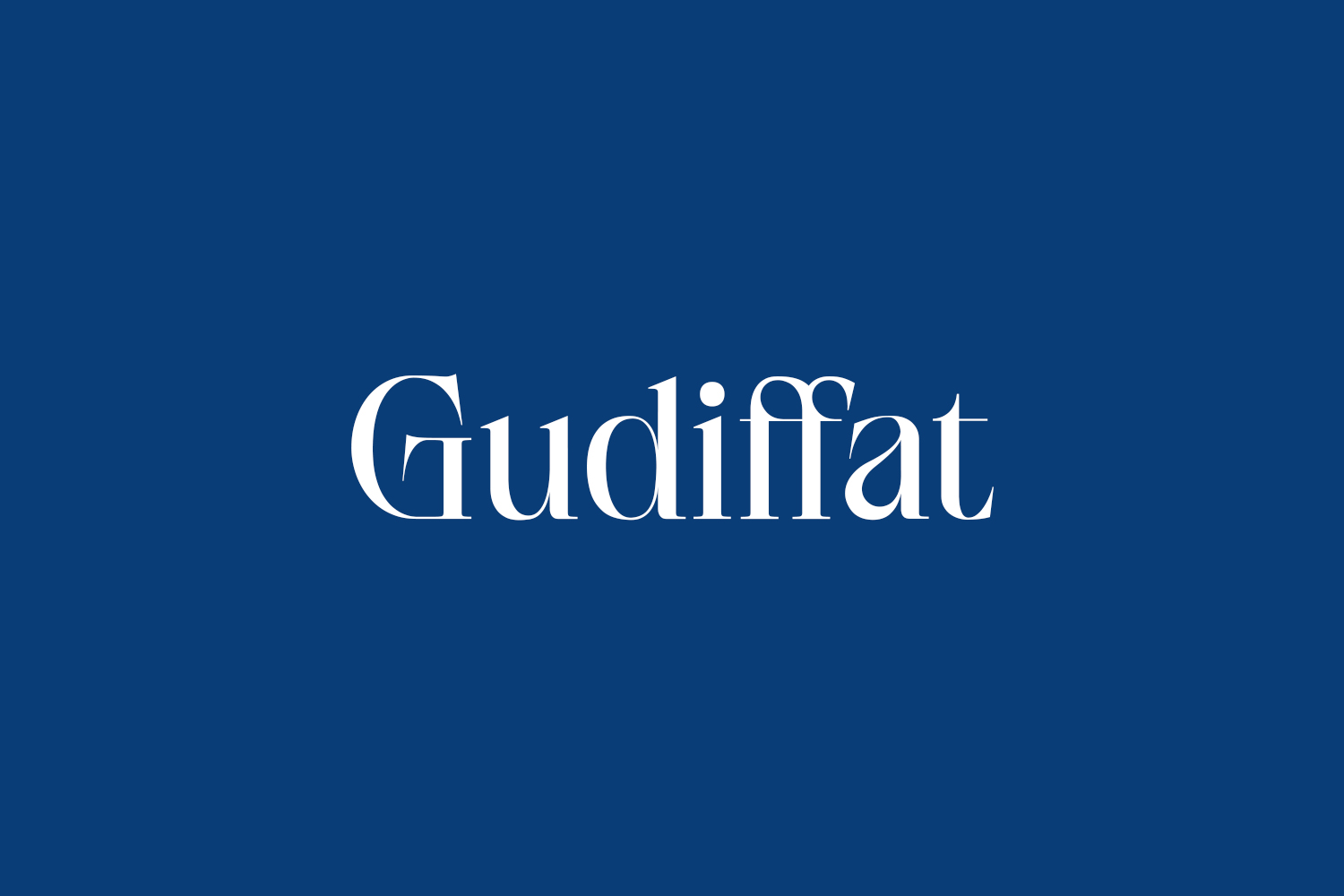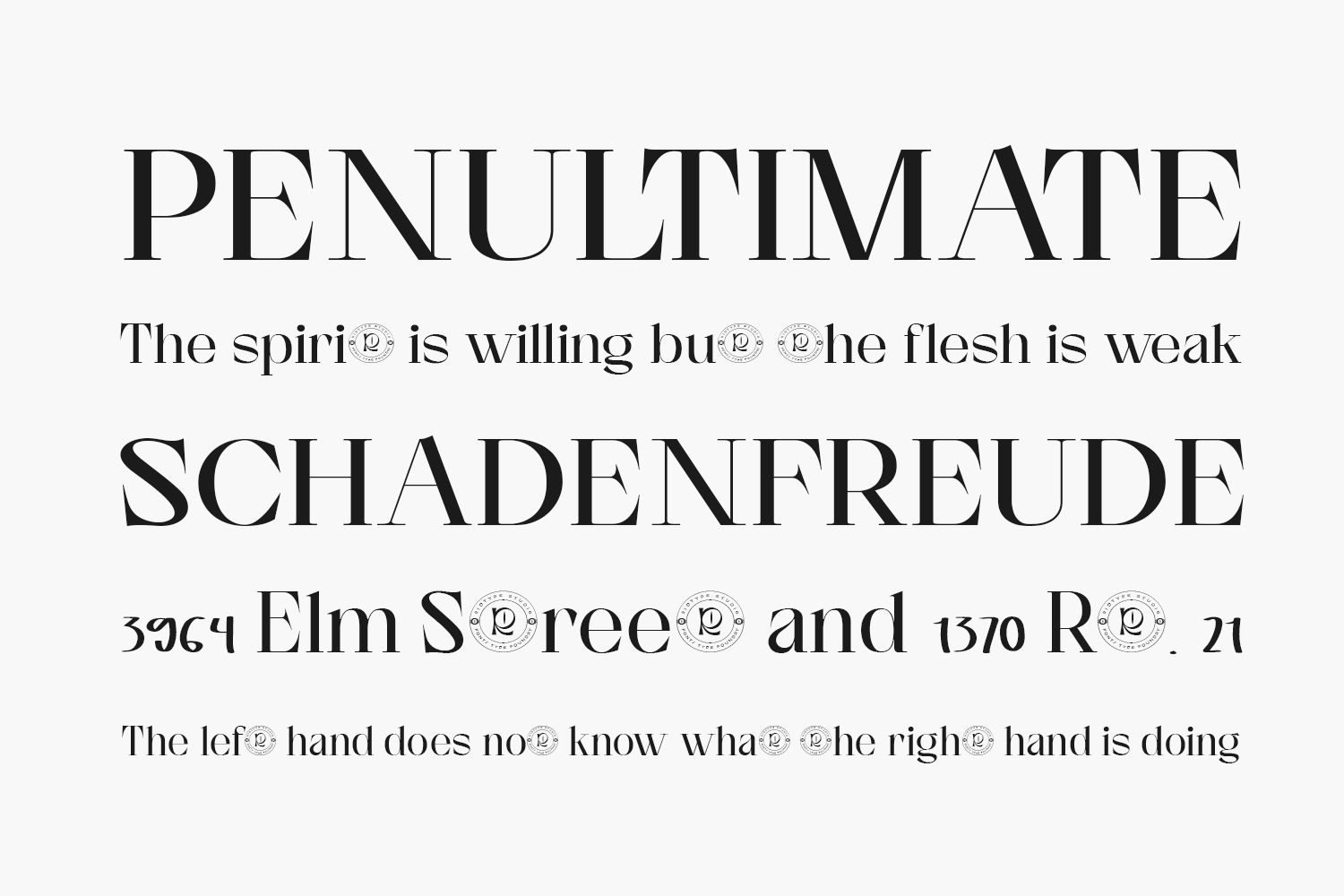
Gudiffat Free Font has many Alternatives, Ligatures from uppercase – lowercase letters, and other supporting character symbols that can be changed as desired. This font is also the best for use in small and large projects such as custom logotypes, project branding, packaging design, advertising, project printing, Youtube Thumbnails, T-shirt design printing, and many more which are suitable for another place to use this font. Gudiffat Free Font was designed by Ridwanfil is a demo and free for personal use only. Please purchase the full version for commercial use.